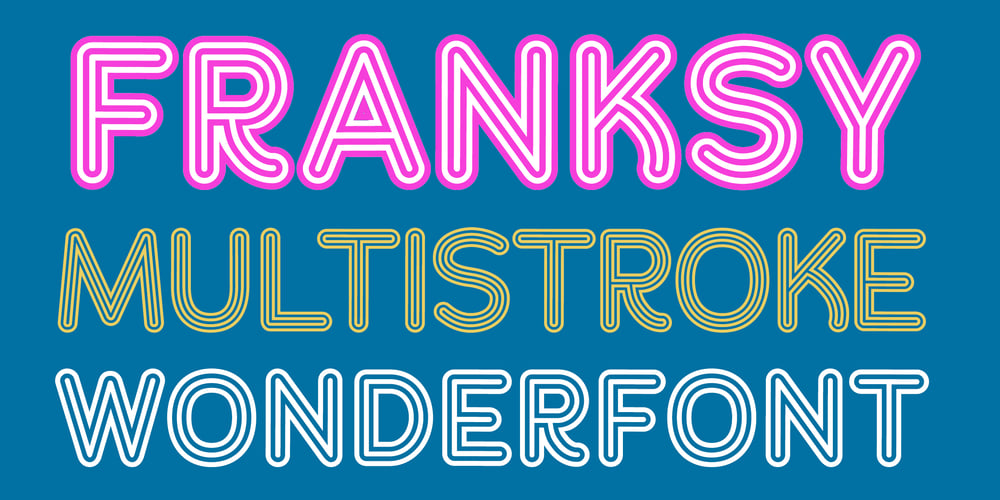
Franksy Font Family was designed by Chank Diesel and published by Chank. Franksy contains 12 styles and family package options. Franksy is a bright and bubbly multi-stroke font based upon a nice clean rounded font, but outlined and inlined and emboldened to make a thrilling display face for extra impact when you need it. Starting with the Frankfurter round font, new outlines have been added again and again to create a vibrant new logofont that send echos and excitement in every smooth and tubular twist and turn.